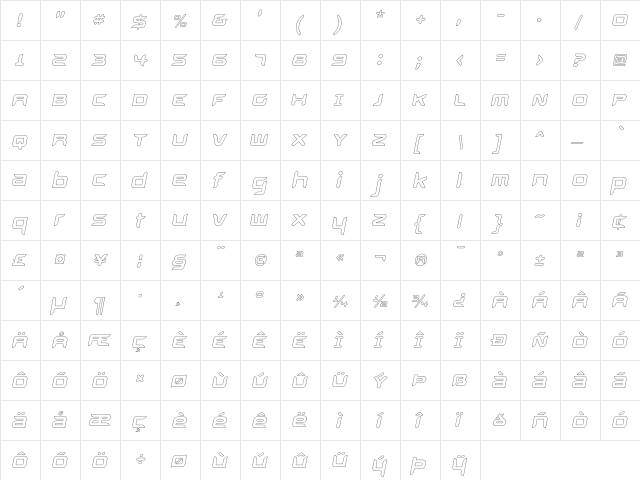
Aura OutlineOblique
Design Context for Aura Typeface
Aura brings ornamental detail and strong personality to headlines and identities, where visual impact matters more than quiet functionality. The slanted form adds forward momentum and visual energy.
Font Pairing: Pair with a clean neutral sans-serif for body copy to let Aura's character lead without overwhelming the composition.
Pro Tip: Use Aura exclusively at display sizes — it was designed to be seen, not read at length. Let a neutral companion handle body copy.